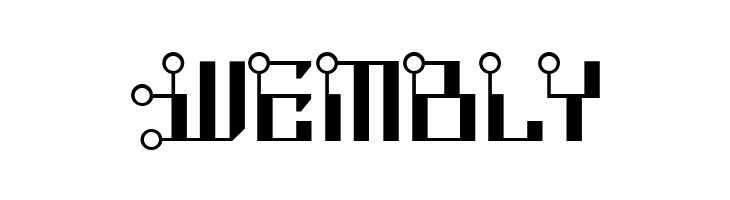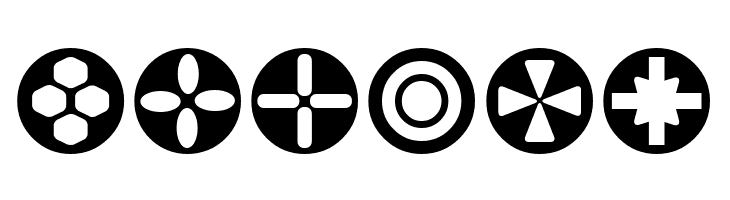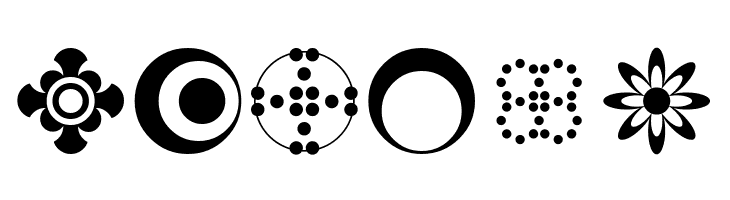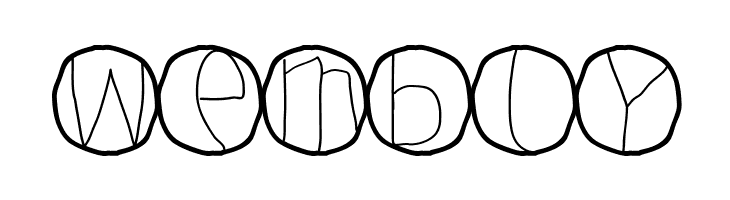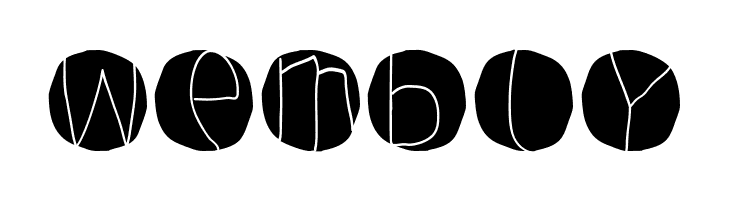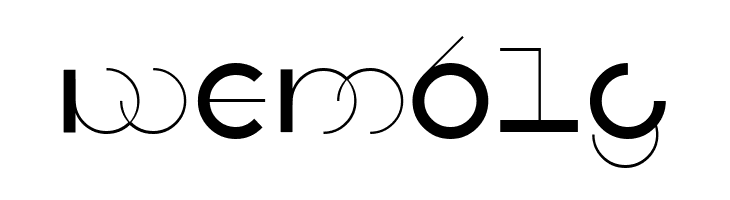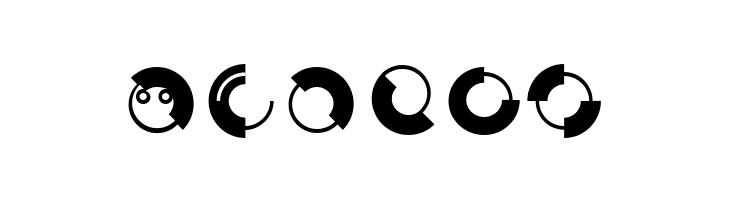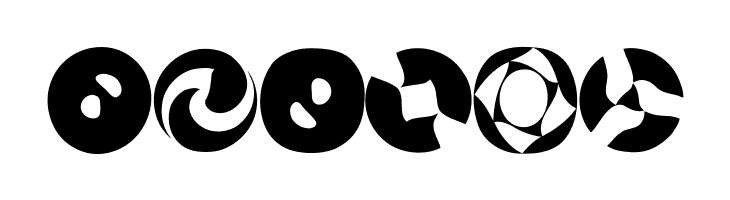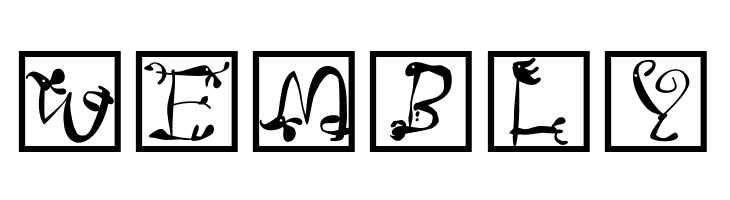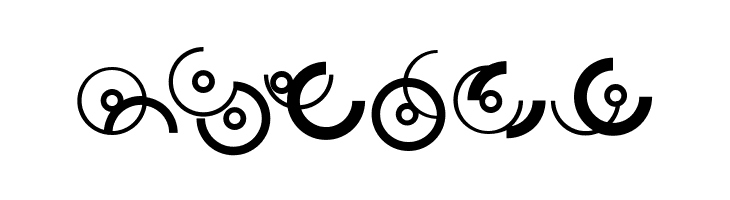
A modern, geometric typeface with consistent stroke width and clean design.
A modern, italic sans-serif font with a sleek and dynamic design.
A modern sans-serif font with a unique shadow effect for added depth.
A dynamic and energetic script font with flowing, cursive letterforms.
A bold, modern font with tall, narrow characters and high contrast strokes.
A bold, geometric font styled like a classic film strip, perfect for cinematic themes.
A clean, modern font with smooth, rounded strokes and excellent readability.
A bold, modern font with thick, uniform strokes and a slightly condensed style.
A playful, hand-drawn font with tall, narrow characters and rounded edges.
An elegant, flowing script font with graceful curves and decorative flourishes.
A bold, classic serif font with high contrast and elegant serifs.
A bold, decorative serif font with classical Roman influences.
A bold serif font with strong strokes and elegant curves, exuding a classic Roman influence.
A bold, elegant serif font with a classic Roman influence.
A classic serif font with high contrast and elegant details.
A bold, decorative serif font with elegant, flowing details.
A decorative font with abstract, face-like characters formed by bold circular elements.
A playful, decorative typeface with characters designed as expressive circular faces.
An abstract, decorative font with swirling, circular motifs and bold strokes.
A modern, circuit-inspired font with geometric shapes and circular nodes.
A modern, geometric font with high contrast and circular elements.
A collection of abstract, circular symbols with bold, modern designs.
A modern, geometric font with characters enclosed in circles.
Circus-themed dingbat font with playful illustrations.
A whimsical, decorative font with playful, circus-inspired embellishments.
A bold, playful font with a vintage circus theme and decorative details.
A whimsical, decorative font with circus-inspired embellishments.
Circus-inspired dingbat font with lively illustrations.
A whimsical, decorative font with playful, circus-themed characters enclosed in squares.